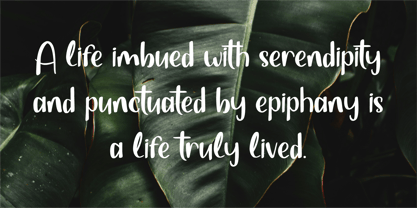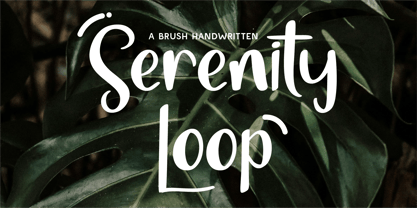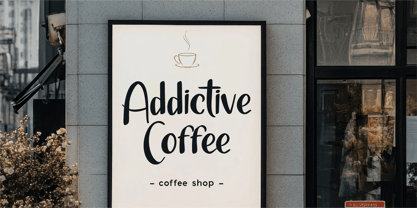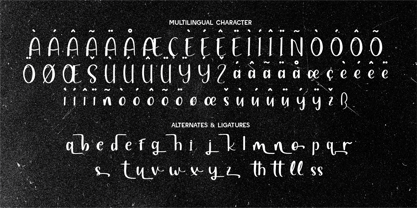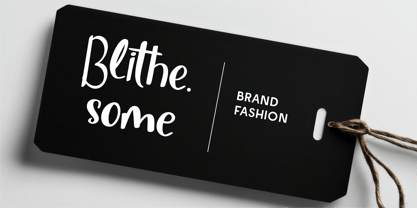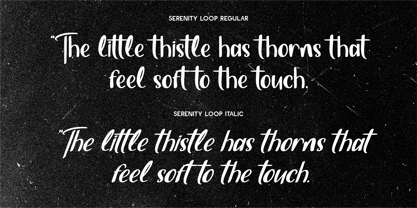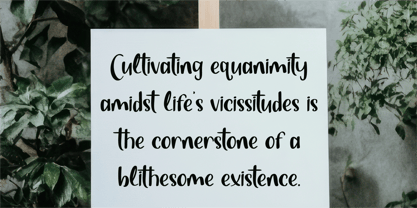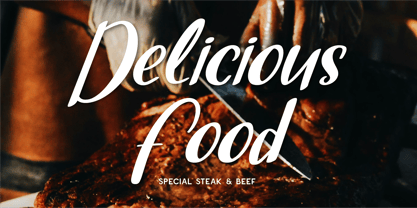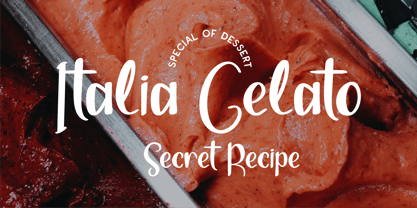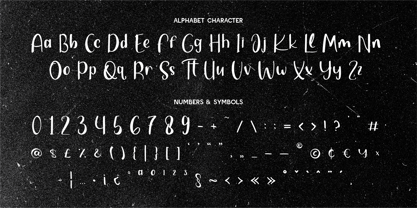
CF Serenity Loop
by Indotype
The CF Serenity Loop Font Family was designed by Gilang Mei Nugraha, Frederik Aristaputra and published by Indotype. CF Serenity Loop contains 2 styles and family package options.
Serenity Loop is a brush handwritten font that exudes natural charm and creative energy. Its bold yet playful strokes create a dynamic, free-flowing style, perfect for projects that call for a personal, artistic touch. Whether used for logos, posters, social media graphics, or branding, this font adds a unique flair while maintaining readability. The organic loops and smooth curves bring a sense of serenity and spontaneity, making your designs feel fresh, vibrant, and full of life.
- Standard Character A-Z, a-z, 0-9, Punctuation & symbols
- Regular & Italic Style
- Multilingual Support
- Include Alternates and Ligatures